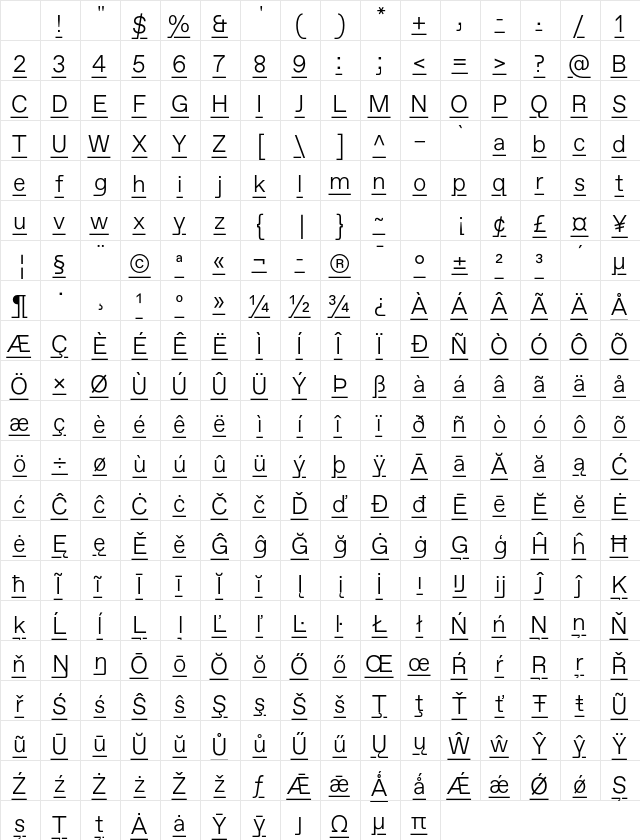
Complete Favorit Lining Std Light Regular glyph index. Displaying only characters natively supported by Favorit Lining Std Light Regular font.
Favorit Lining Std Light is a composed and adaptable typeface that performs quietly and consistently across a wide range of design contexts. Its slender proportions lend an understated elegance to any composition.